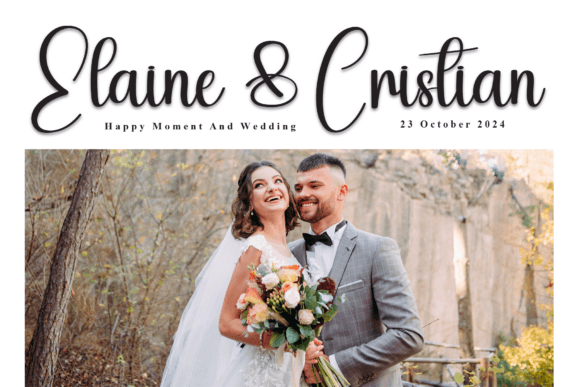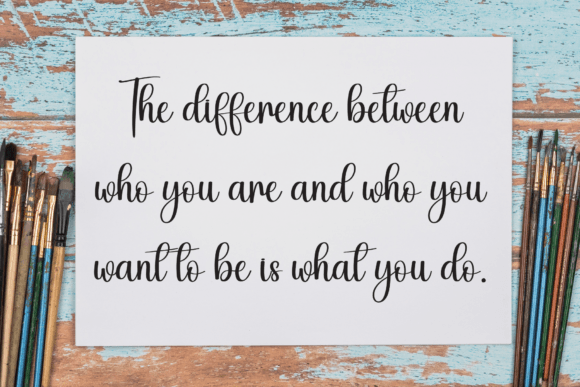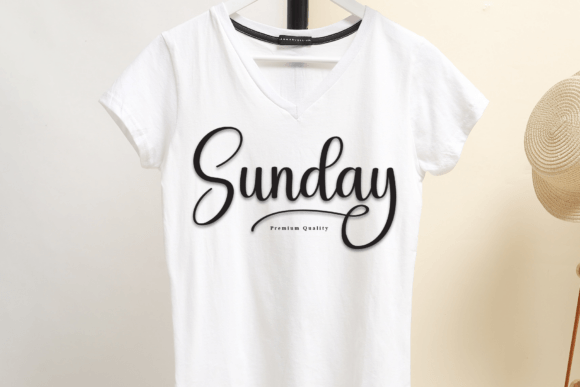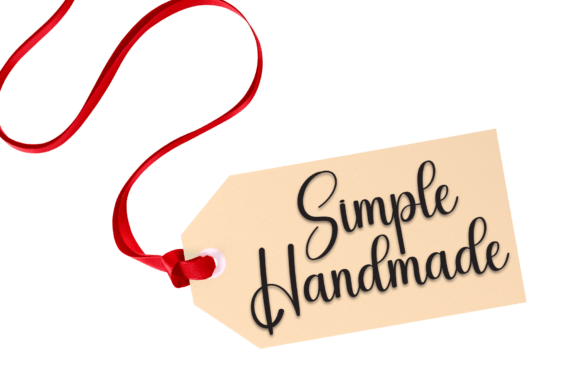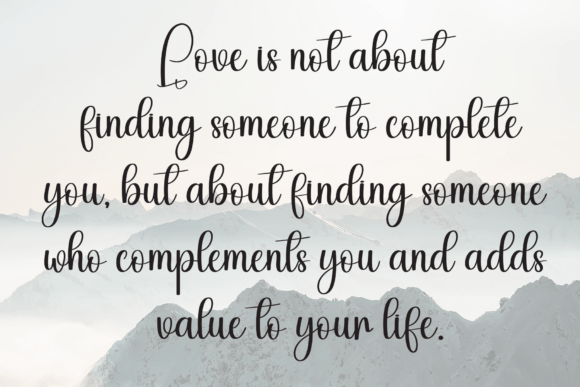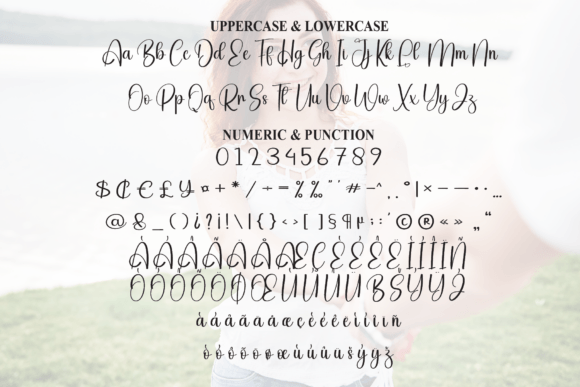
Introducing Beautiful Darling Font: The Perfect Choice for Elegant Designs
Are you a designer or crafter looking for a font that exudes elegance and warmth? Look no further than Beautiful Darling Font, a charming handwritten font that features elegant, flowing letters. With its soft and warm feel, this font is perfect for creating beautiful invitations, greeting cards, and personal notes that will leave a lasting impression.
The Unique Characteristics of Beautiful Darling Font
Beautiful Darling Font boasts a range of unique characteristics that set it apart from other fonts. Its elegant, flowing letters are designed to evoke a sense of sophistication and refinement, making it perfect for designs that require a touch of luxury. The font’s soft and warm feel is achieved through its gentle curves and rounded edges, giving it a friendly and approachable vibe.
Perfect for Invitations, Greeting Cards, and Personal Notes
Beautiful Darling Font is ideal for creating beautiful invitations, greeting cards, and personal notes. Whether you’re designing a wedding invitation, a birthday card, or a heartfelt letter, this font will add a touch of elegance and sophistication to your design. Its playful style and graceful curves make it perfect for adding a personal flair to any design, making it a great choice for crafters and designers who want to create unique and eye-catching projects.
Key Features of Beautiful Darling Font
- Elegant and flowing letters: Beautiful Darling Font features elegant, flowing letters that are perfect for creating sophisticated designs.
- Soft and warm feel: The font’s soft and warm feel makes it perfect for creating designs that require a friendly and approachable vibe.
- Graceful curves and playful style: The font’s graceful curves and playful style give it a unique and lovely touch, making it perfect for adding a personal flair to any design.
- Perfect for invitations, greeting cards, and personal notes: Beautiful Darling Font is ideal for creating beautiful invitations, greeting cards, and personal notes that will leave a lasting impression.
Tips for Using Beautiful Darling Font
- Pair it with complementary fonts: Beautiful Darling Font pairs well with other fonts that have a similar elegant and flowing style. Try pairing it with a simple sans-serif font to create a beautiful contrast.
- Use it for headings and titles: Beautiful Darling Font is perfect for creating beautiful headings and titles. Use it to add a touch of elegance and sophistication to your design.
- Experiment with different colors: Beautiful Darling Font looks great in a range of colors. Experiment with different colors to find the one that works best for your design.
Beautiful Darling Font is a charming handwritten font that features elegant, flowing letters. With its soft and warm feel, it’s perfect for creating beautiful invitations, greeting cards, and personal notes. Its unique characteristics, such as its graceful curves and playful style, make it a great choice for designers and crafters who want to add a personal flair to their designs. Whether you’re creating a wedding invitation, a birthday card, or a heartfelt letter, Beautiful Darling Font is the perfect choice for elegant designs.